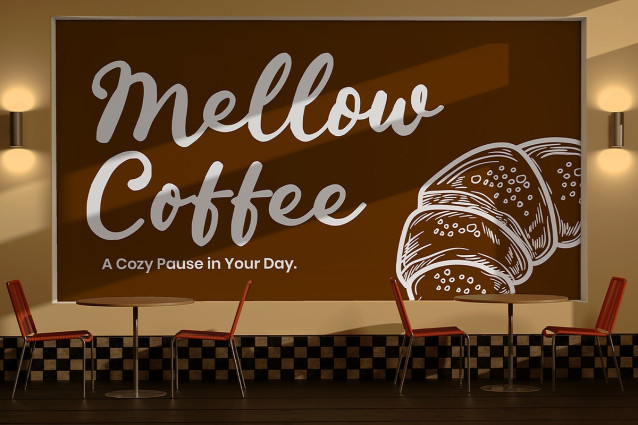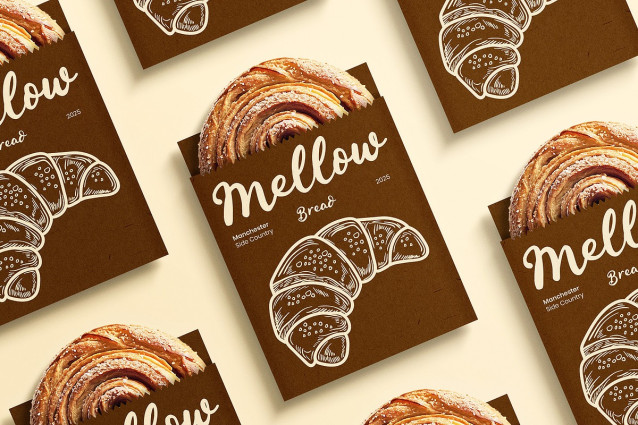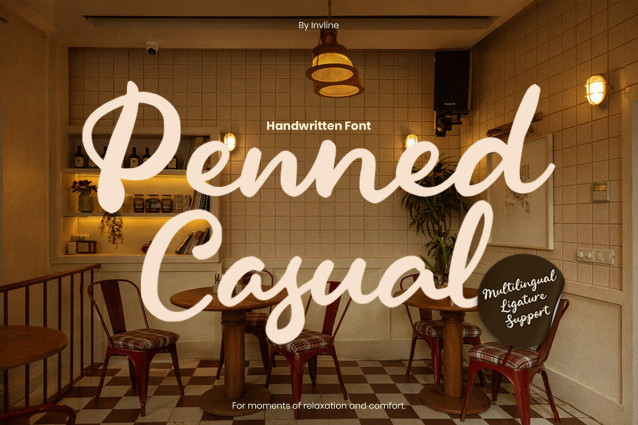
Penned Casual Font
Penned Casual Font is a warm handwritten script font made for slow mornings, quiet cafés, and moments that deserve softness. Each letter feels like it was written in the corner of a coffee shop rounded, relaxed, and gently flowing from one stroke to the next. It brings a friendly, welcoming tone to any design, perfect when you want your message to feel personal rather than polished and corporate.
Inspired by café menus, bakery packaging, and handwritten notes on napkins, Penned Casual gives your visuals the comfort of a familiar place. Its smooth curves and easy readability make it ideal for both headlines and short texts, wrapping your designs in a cozy atmosphere that feels inviting, warm, and genuine.